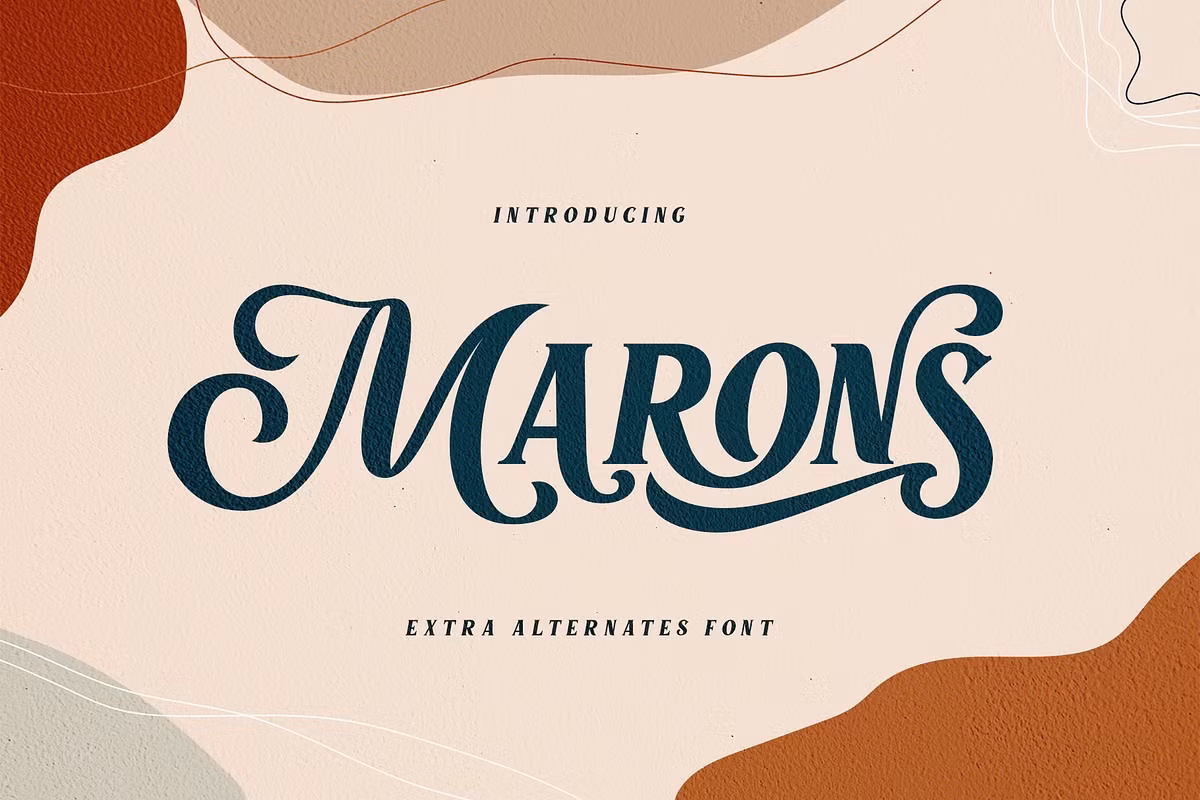
Marons Font Free Download is a bold and stylish vintage-inspired display font that brings a strong visual presence to any design. With its chunky letterforms and retro charm, Marons is perfect for logos, headlines, product labels, T-shirts, posters, and branding projects that need a nostalgic yet fresh twist.
The font combines smooth curves with a sturdy structure, making it both eye-catching and easy to read. It includes uppercase and lowercase letters, punctuation, multilingual support, and is fully compatible with Mac and Windows systems.